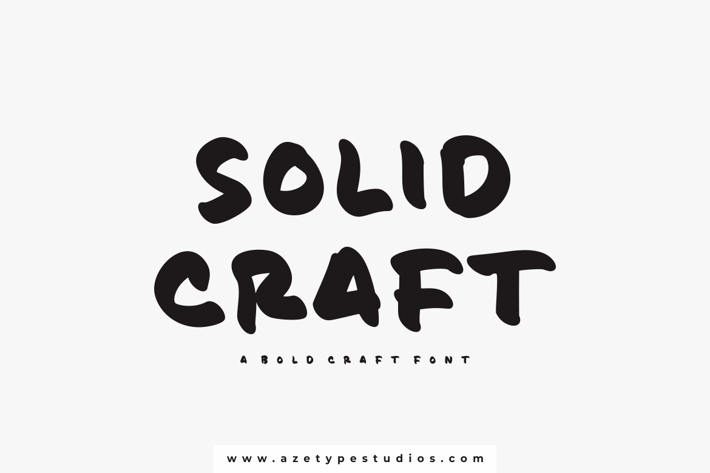
Solid Craft
Introducing, Solid Craft is a bold craft font with the casual style suitable for your design project needs, such as; crafting, cutting, social media posts, your quotes, overlays on images, tagline logos, posters, print needs, website banners, and more.
A set of uppercase and lowercase glyphs
Number, symbol, and punctuation
Multilingual accent ( ́ ̂ ̀ ̊ ̈ ̃ ̄ ̌ ̆ ̨ ̧ ̇ ̋ ̒ ̦ ̍ ̶ )
Some multilingual glyphs (ÆØŒæðøœß¡¿)